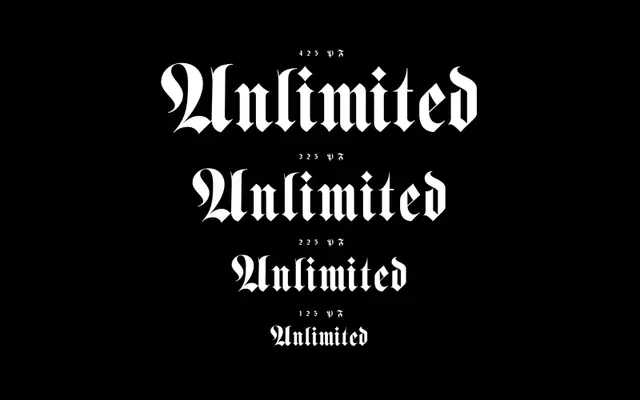
Luxus Gothic
The Designers Foundry · Drew Melton · 2015
Luxus Gothic specimen from The Designers Foundry
A single-weight modernisation of Fette Fraktur, drawn by Drew Melton between 2013 and 2015 with slightly tighter proportions and finer detailing than the 19th-century original.
Drew Melton drew Luxus Gothic over two years as a contemporary reworking of Johann Christian Bauer's Fette Fraktur of 1850, a typeface that became a standard across German foundries in the late 19th and early 20th centuries. The design is slightly more condensed than its source material, with refined details intended to suit modern applications in branding and display. Language support extends across a wide range of Latin-script languages including German, French, Spanish and numerous African languages.
A modern interpretation of Fette Fraktur, the 19th-century German blackletter style. The page describes it as a refined gothic typeface drawn from that tradition, making fraktur the precise subcategory.